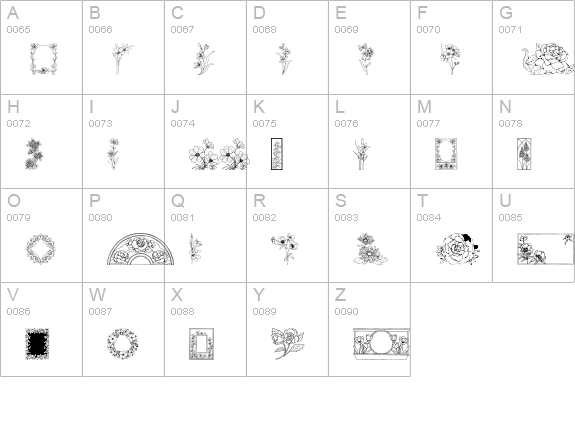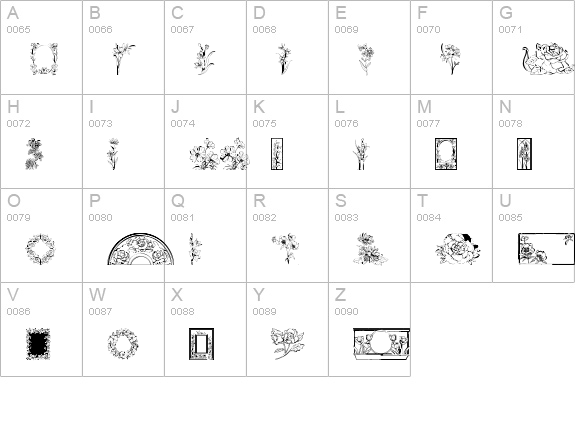
The Floral Design font is a charming and elegant typeface that beautifully captures the essence of blooming flowers and intricate botanical patterns. Its delicate curves and detailed floral elements make it perfect for adding a touch of natural beauty to your designs. This unique font is not only visually stunning but also versatile, suitable for a wide range of projects including invitations, greeting cards, branding, and more. The best part is that the Floral Design font is completely free to download at FontsMarket.com, making it accessible to all designers looking to add a touch of floral flair to their work. Don't miss out on this lovely font that will surely make your creations blossom with creativity and style.